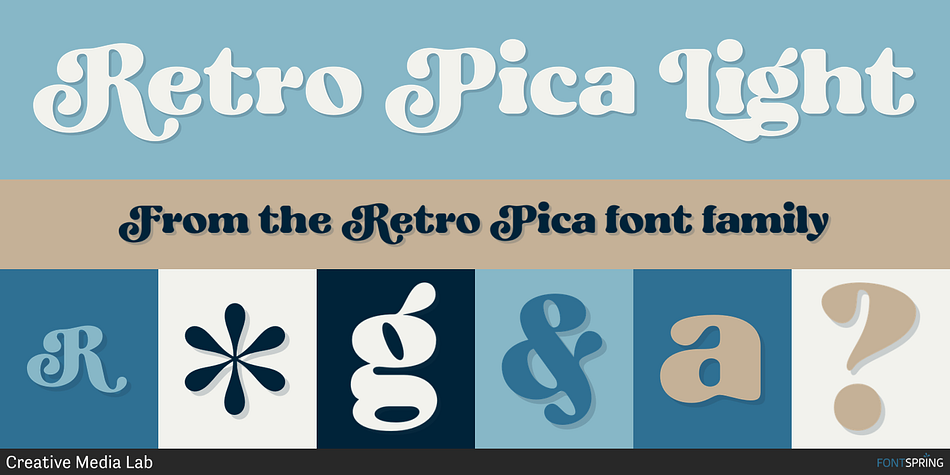
Retro Pica Light
Retro Pica is a retro and serif font family. This typeface has two styles and was published by Creative Media Lab.
Introducing Retro Pica, a bold and fun display font. Retro Pica features a bold retro style with many alternate characters ideal for design, such as posters, t-shirts, branding, logos, etc.
Retro Pica Lite, with this style, we replaced the uppercase character with the alternate version for those who use applications that do not support open-type features.